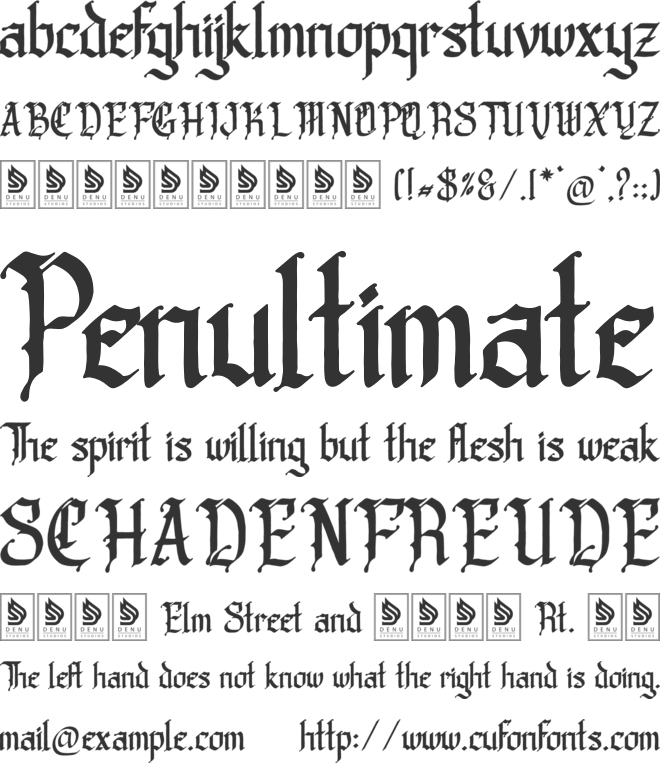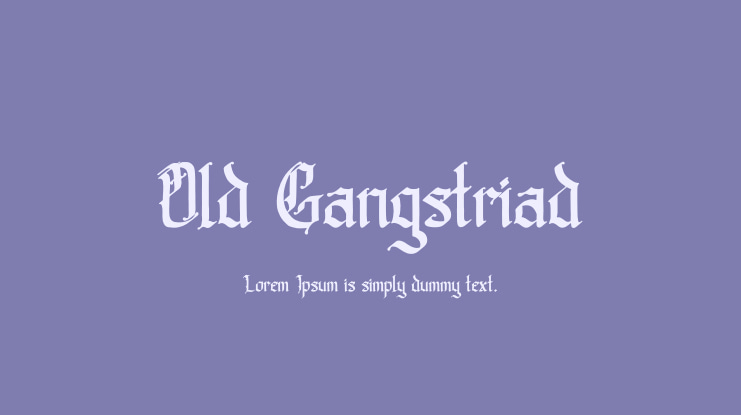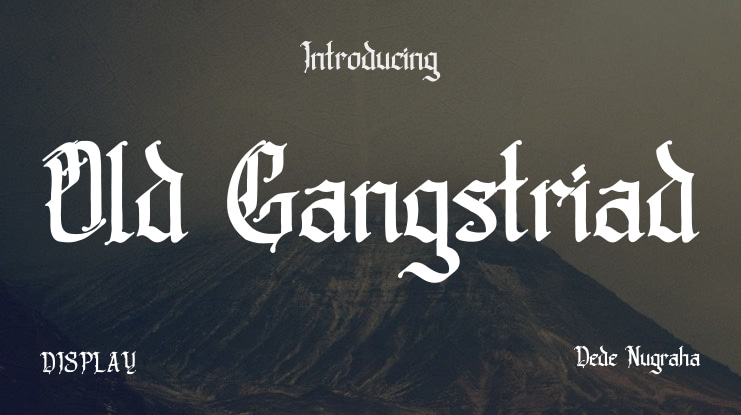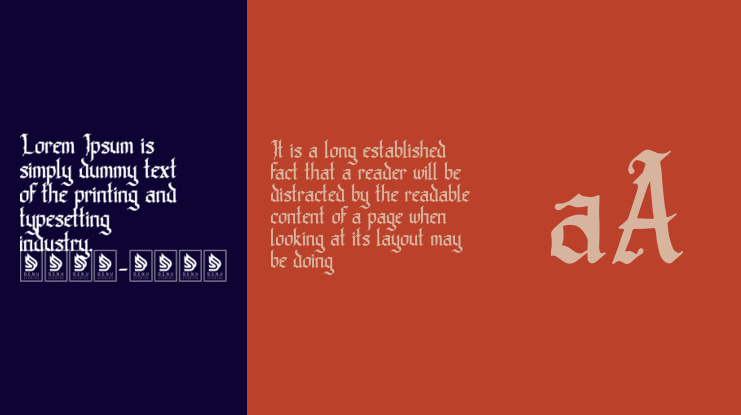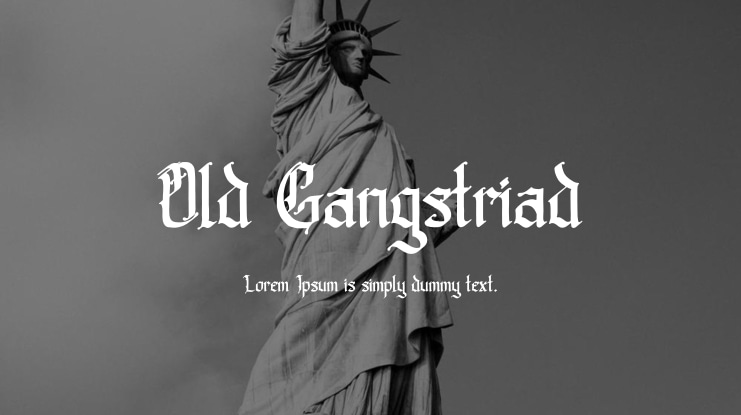
Old Gangstriad | Blackletter Typeface is ideal for any project including logos, branding, homeware designs, product packaging, mugs, quotes, posters, shopping bags, t-shirts, book covers, name cards, invitation cards, greeting cards, labels, photography, watermarks, special events, and all your other lovely creations that need a Blackletter Typeface touch.